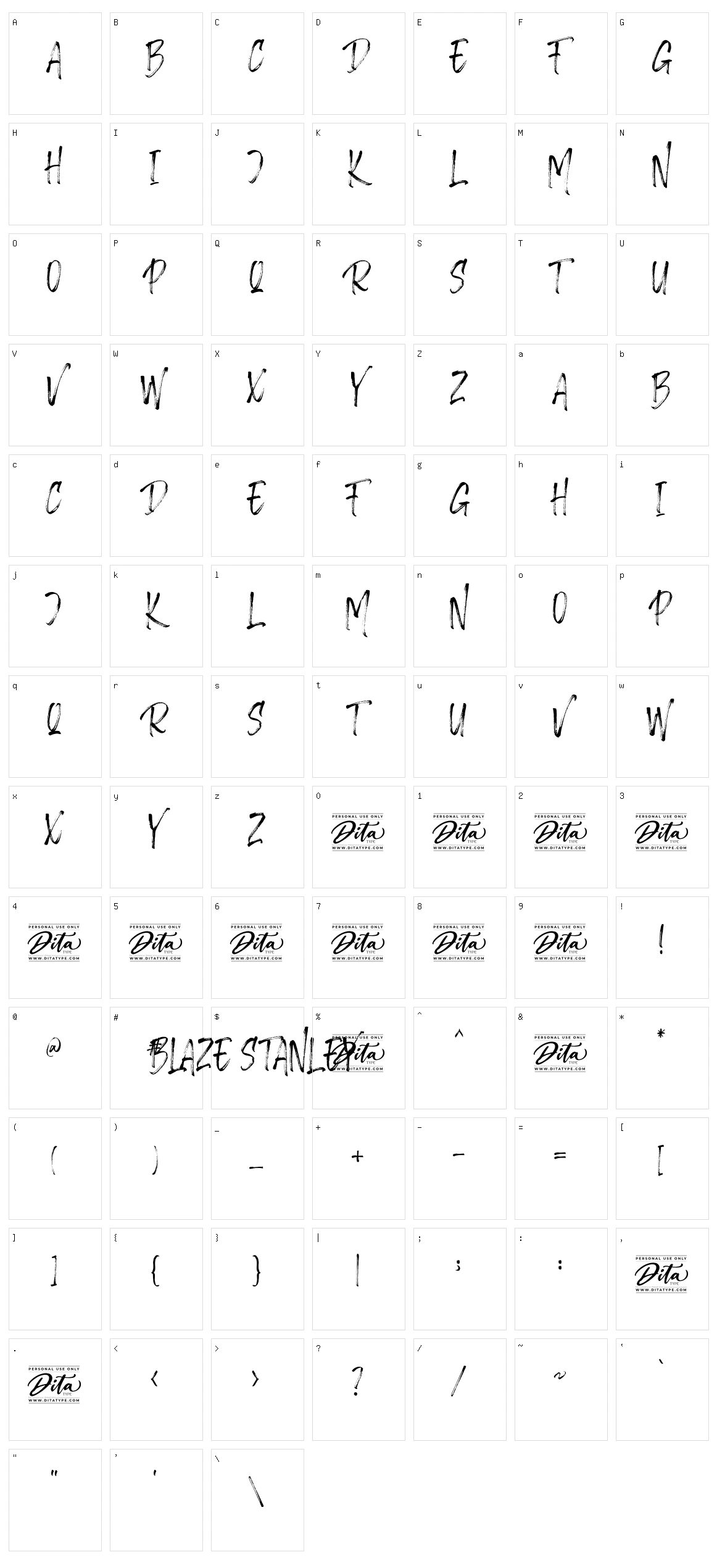
The free font Blaze Stanley is carefully designed by Ditatype, showcasing a thoughtful balance of creativity and usability and falls under the Script font style. When you download the ZIP file, it contains only 1105.37 KB of font files, making it lightweight and quick to download. Please review the license details below to understand permitted usage and distribution rights. If license information is not available, we recommend using this font for personal projects only or contacting the author directly for commercial usage permissions.